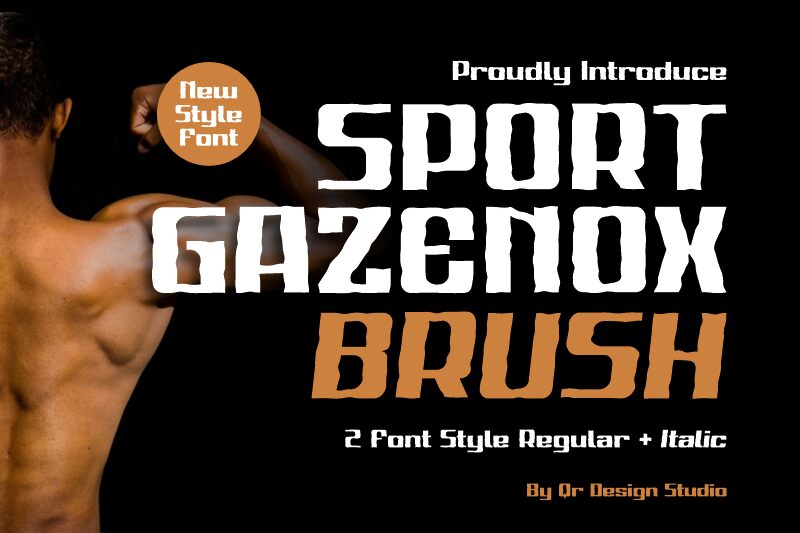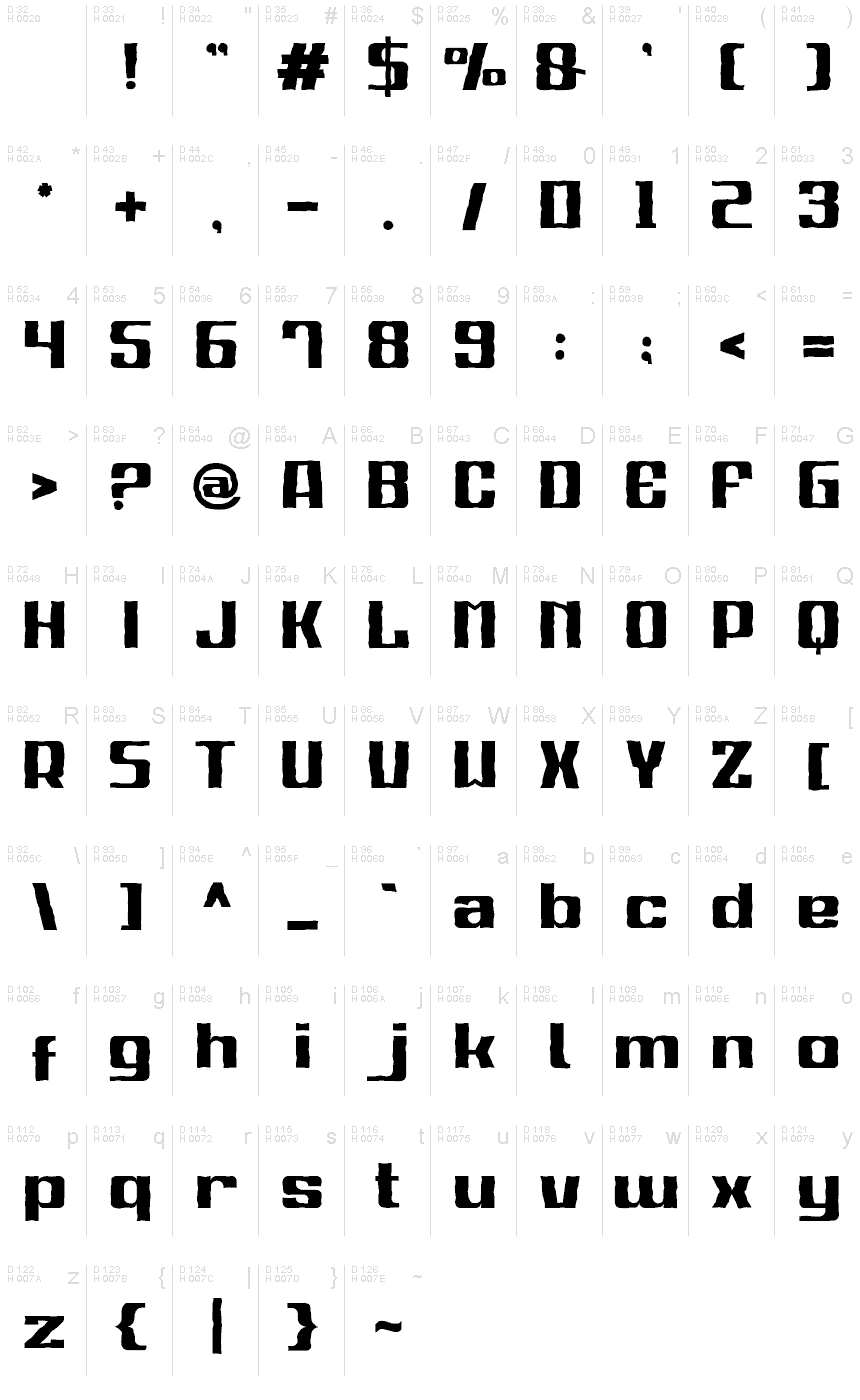
Sport Gazenox Brush
Sport Gazenox Brush font by Qr Design is a display typeface with a bold and expanded style. Its eroded look gives it a retro and industrial vibe, perfect for achieving the desired concept effortlessly. Its assertive design appears block-like and confident, making it suitable for projects focused on sports-related content such as using it in YouTube channels of athletes or designing logos for teams.
The free condensed font can also be put to use wherever geometric styles are required. Use it on book covers, printed advertisements, clothing brand identities, packaging boxes and bags, posters designed for conferences or talks etc.